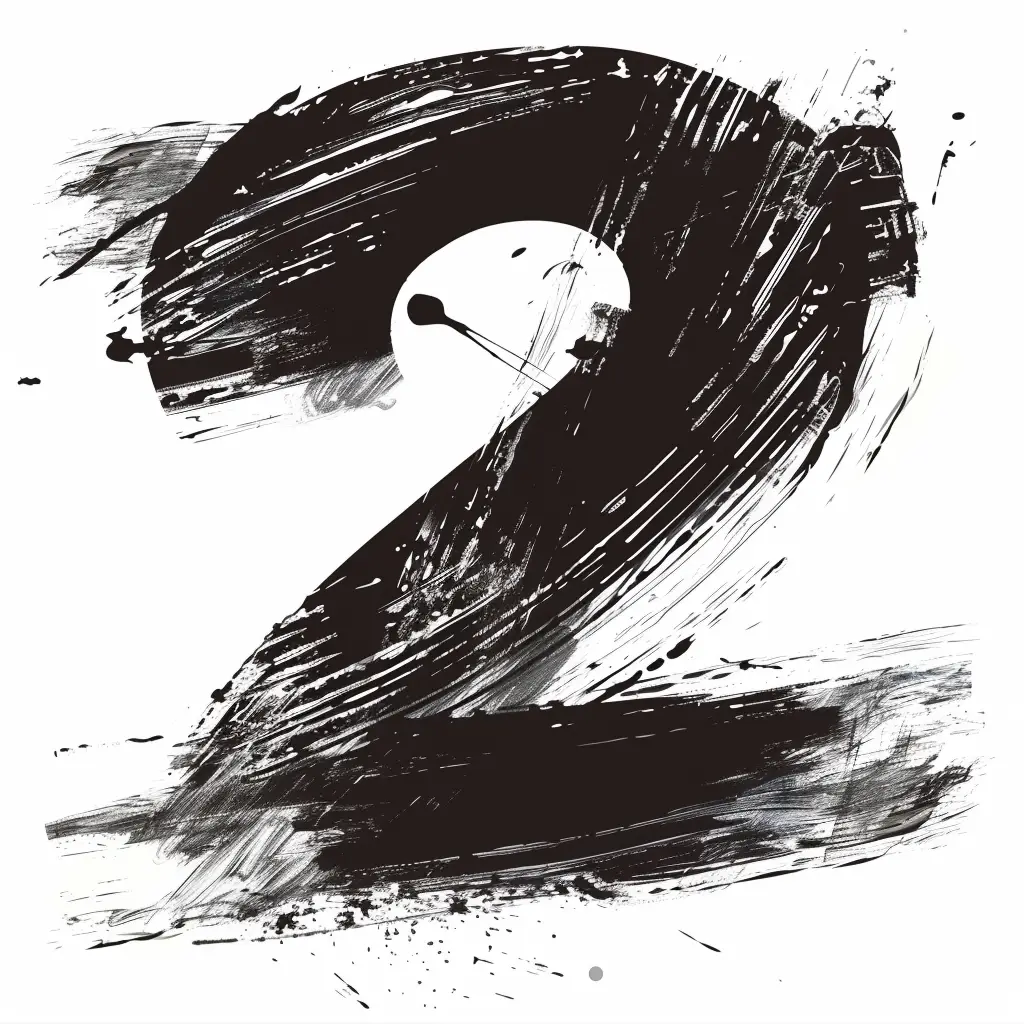
This image features a stylized, artistic representation of the number "2" rendered in bold black brushstrokes against a white background. The design incorporates dynamic, textured lines, splatters, and smudges, giving it a rough, expressive, and almost graffiti-like appearance. The high contrast between the black and white emphasizes the number’s form while adding a sense of movement and energy to the composition.